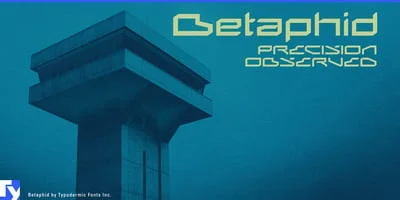
Betaphid Font
Betaphid Font is perfect for scientific publications, research institutions, biotech companies, pharmaceutical branding, laboratory documentation, medical journals, academic conferences, technical specifications, and scientific communication materials. This precise typeface brings scientific authority and research credibility to projects requiring analytical clarity and professional academic presentation.
What makes Betaphid Font exciting is its analytical precision that embodies the methodical nature of scientific research and discovery with exceptional clarity and intellectual rigor that inspires confidence in complex data presentation. The font features systematically designed letterforms with mathematical accuracy and research-grade consistency that reflects the precision of scientific methodology and academic excellence. Its scholarly personality and analytical character make it irresistible for research organizations seeking typography that communicates scientific expertise while ensuring optimal readability for technical documentation and peer-reviewed publications.
The Betaphid Font family includes research weights and scientific styles: Light, Regular, Medium, Semibold, Bold, and monospace variations with scientific symbols and mathematical notation. Each weight maintains the font's analytical character while offering designers complete flexibility for scientific branding and research communication applications requiring technical accuracy and academic credibility.
Whether you're designing for research laboratories or scientific institutions, Betaphid Font provides designers with a precise, research-focused typeface solution. The font's scientific aesthetics and analytical styling make it ideal for biotechnology companies, pharmaceutical corporations, academic research centers, and scientific publishing houses. Its authoritative presence ensures your message communicates research excellence and scientific integrity while maintaining superior technical readability. The comprehensive character set includes scientific notation and research symbols, making it perfect for creating credible headlines and publications that establish authority in scientific communities and demonstrate analytical competence across all research and academic communications.